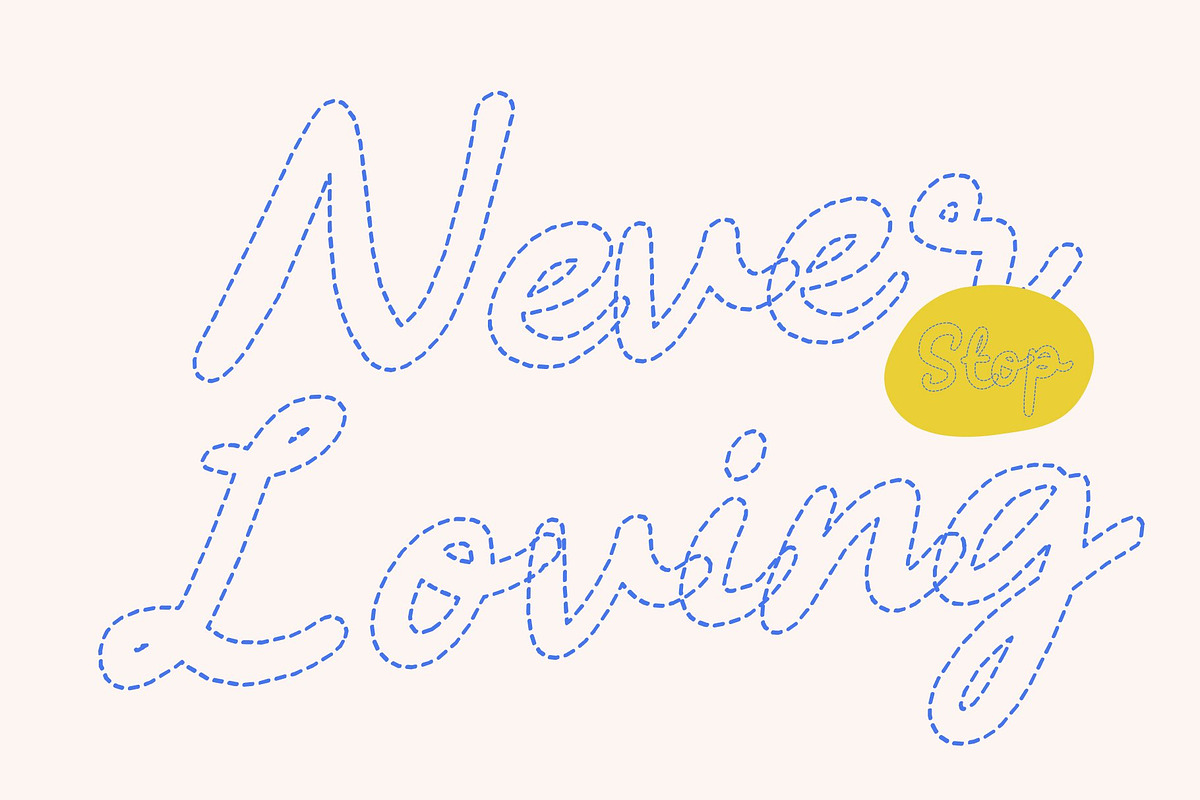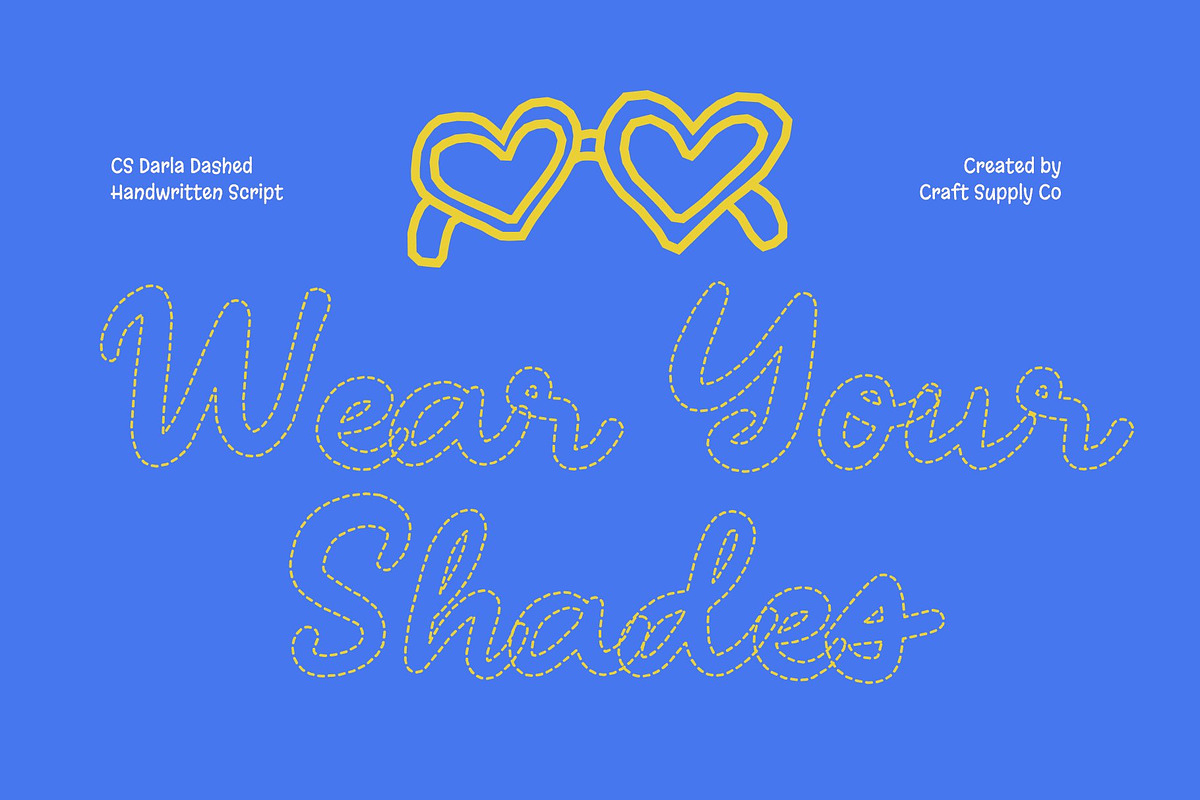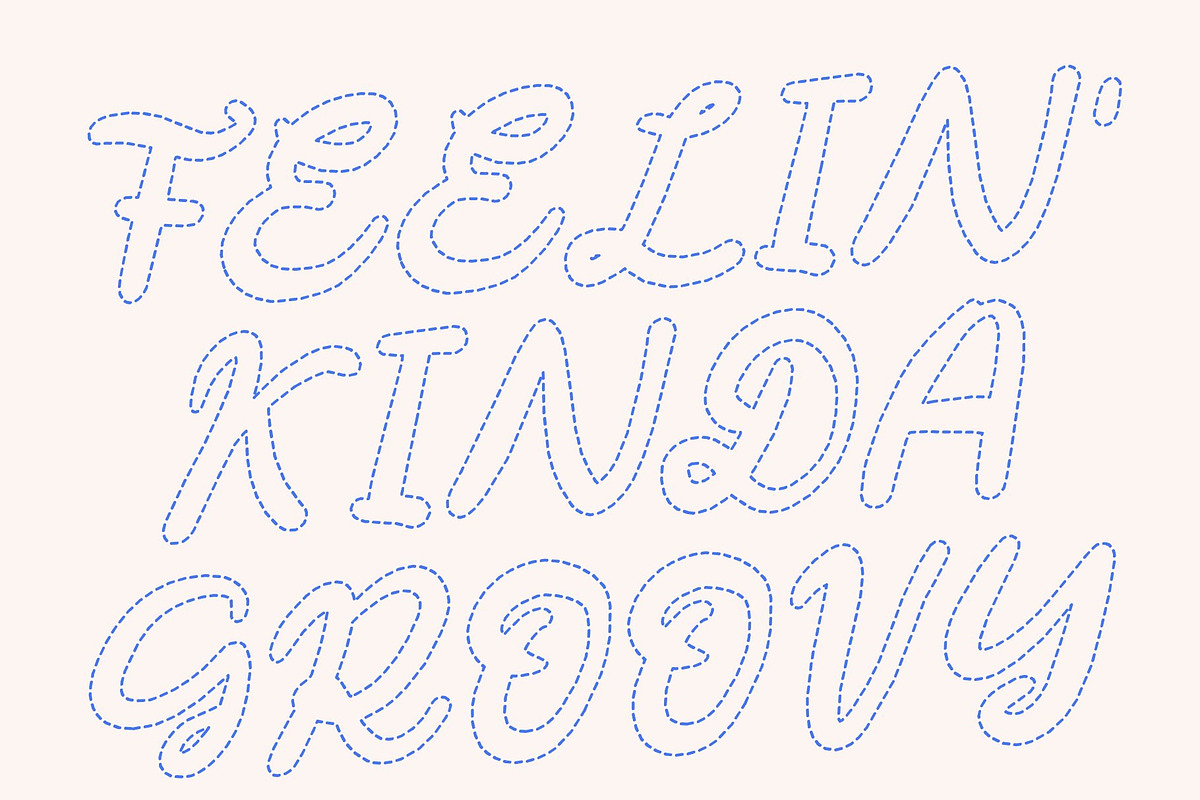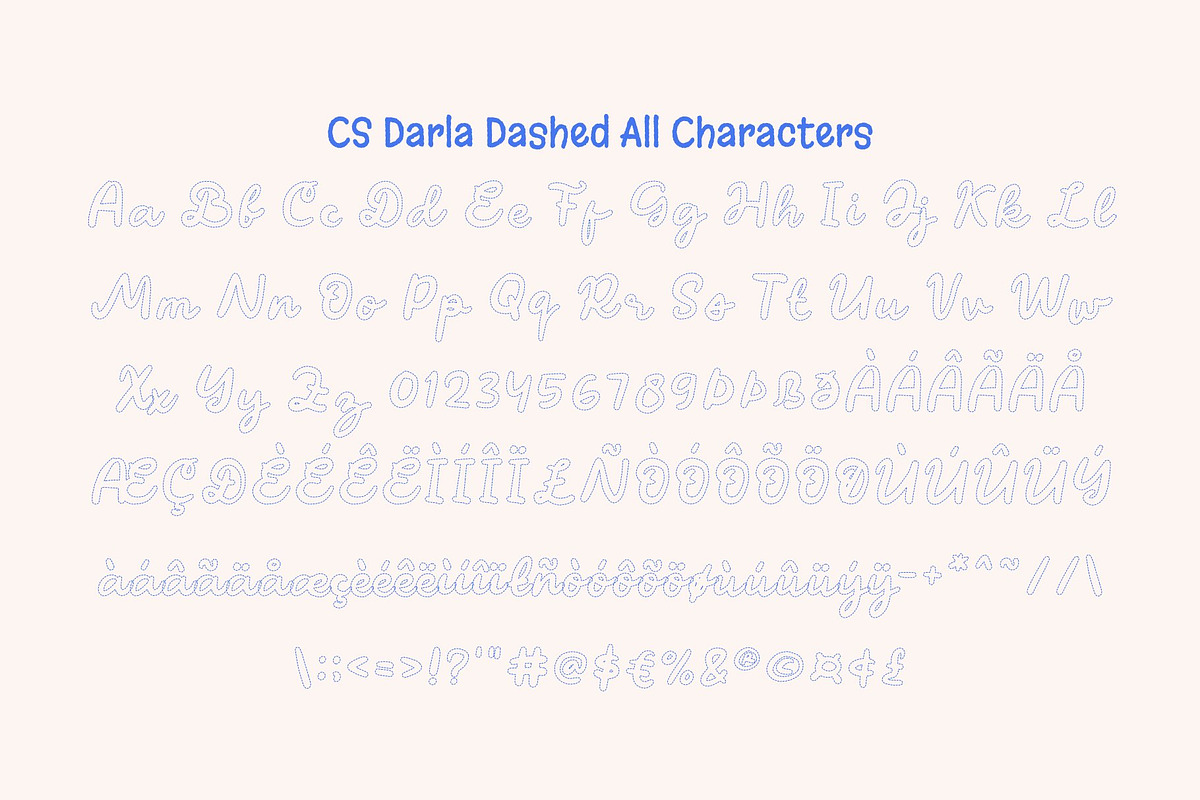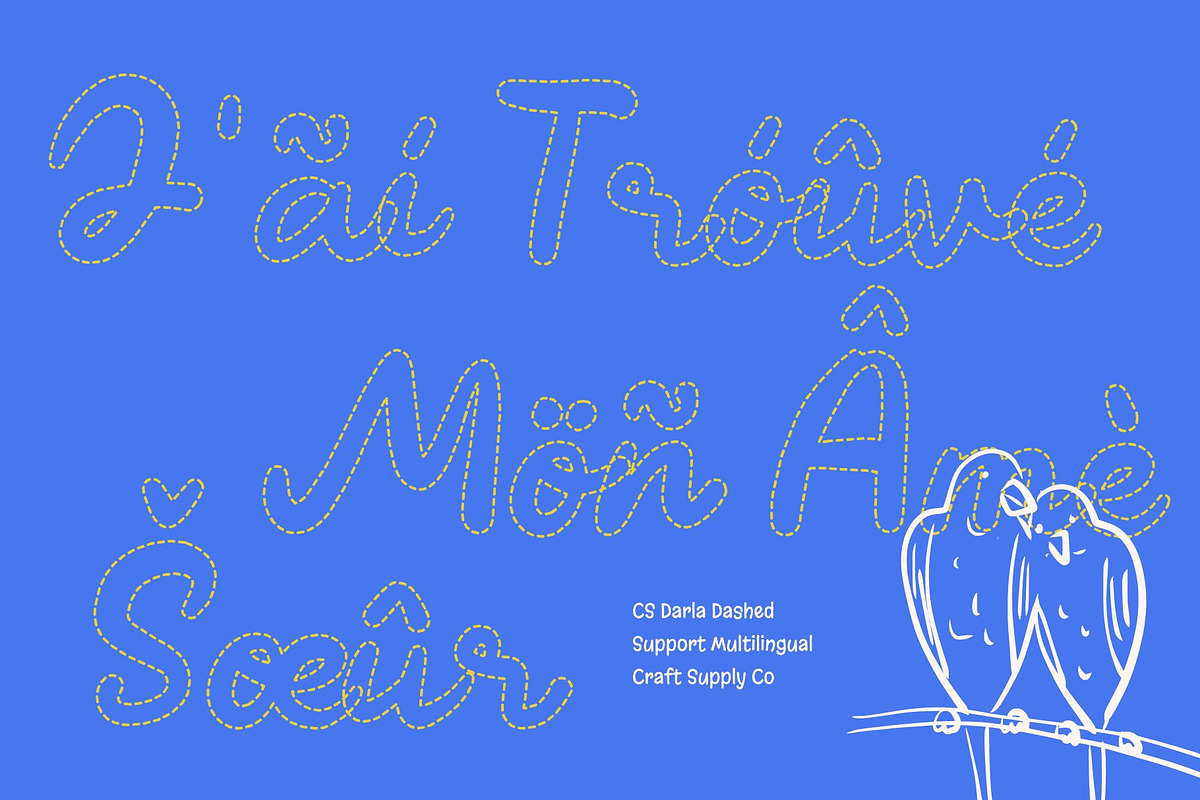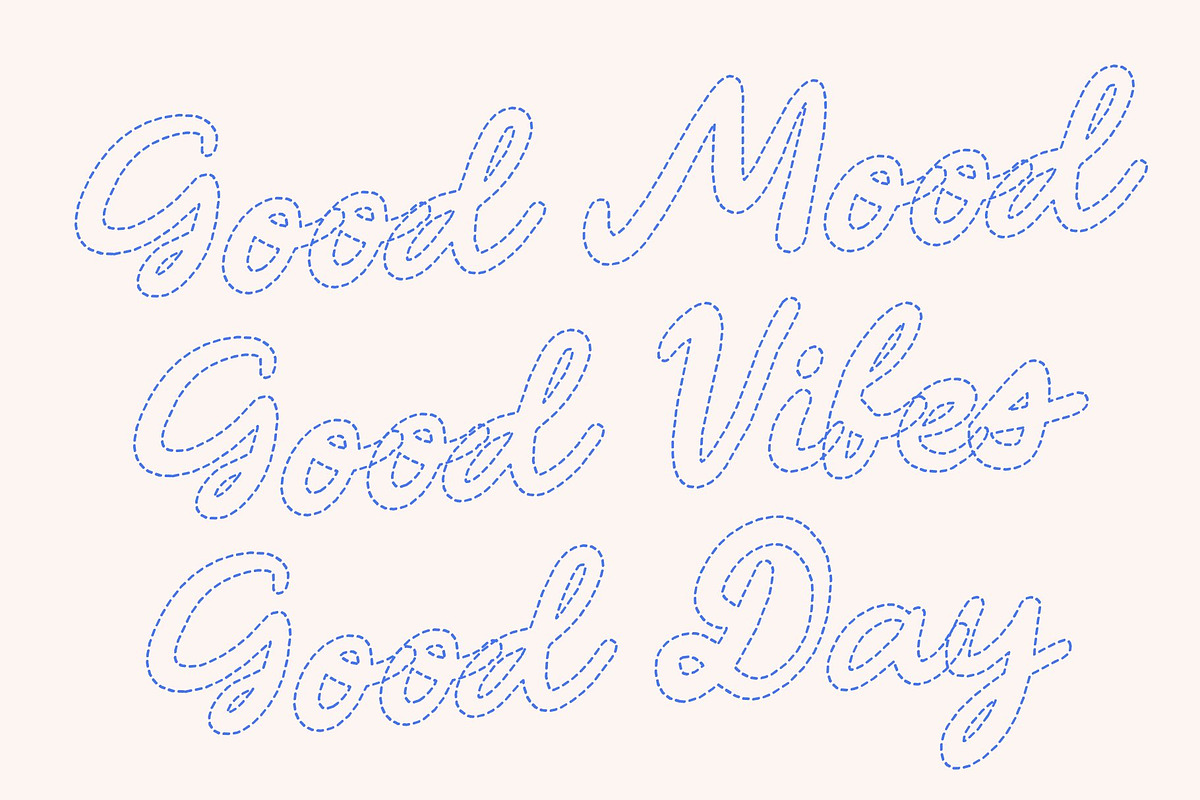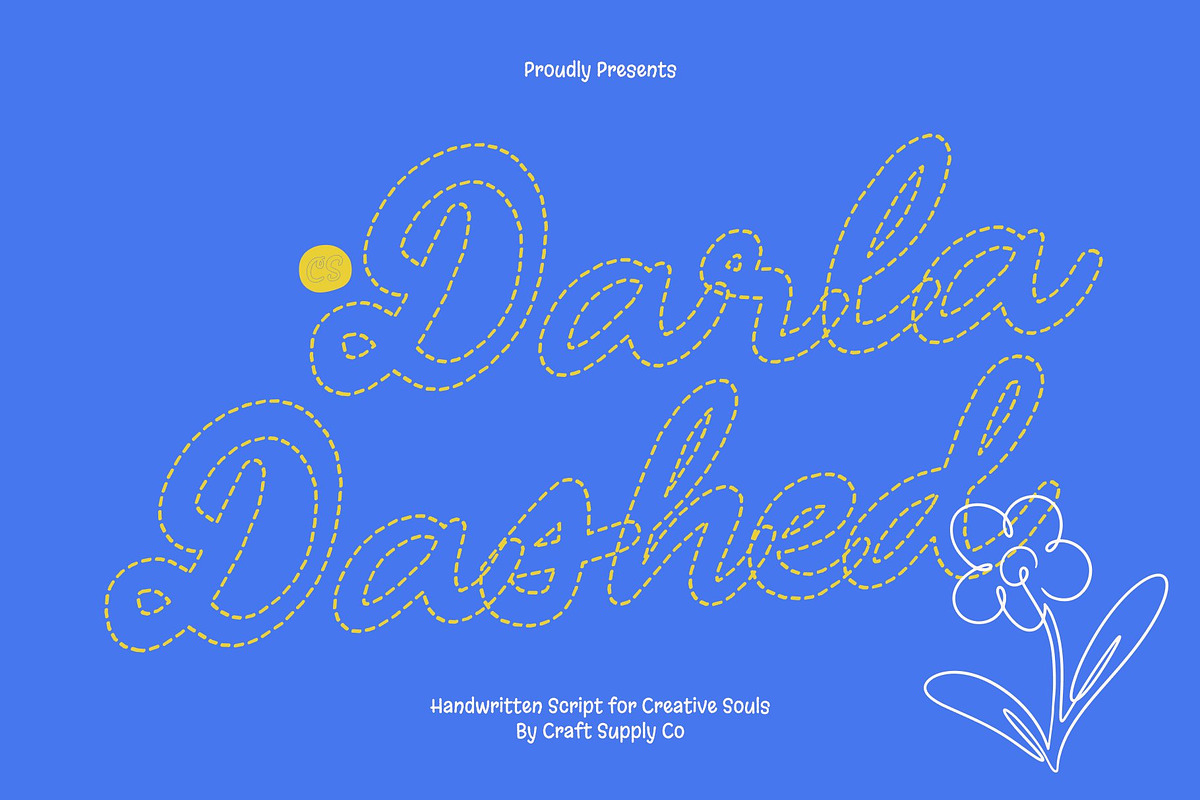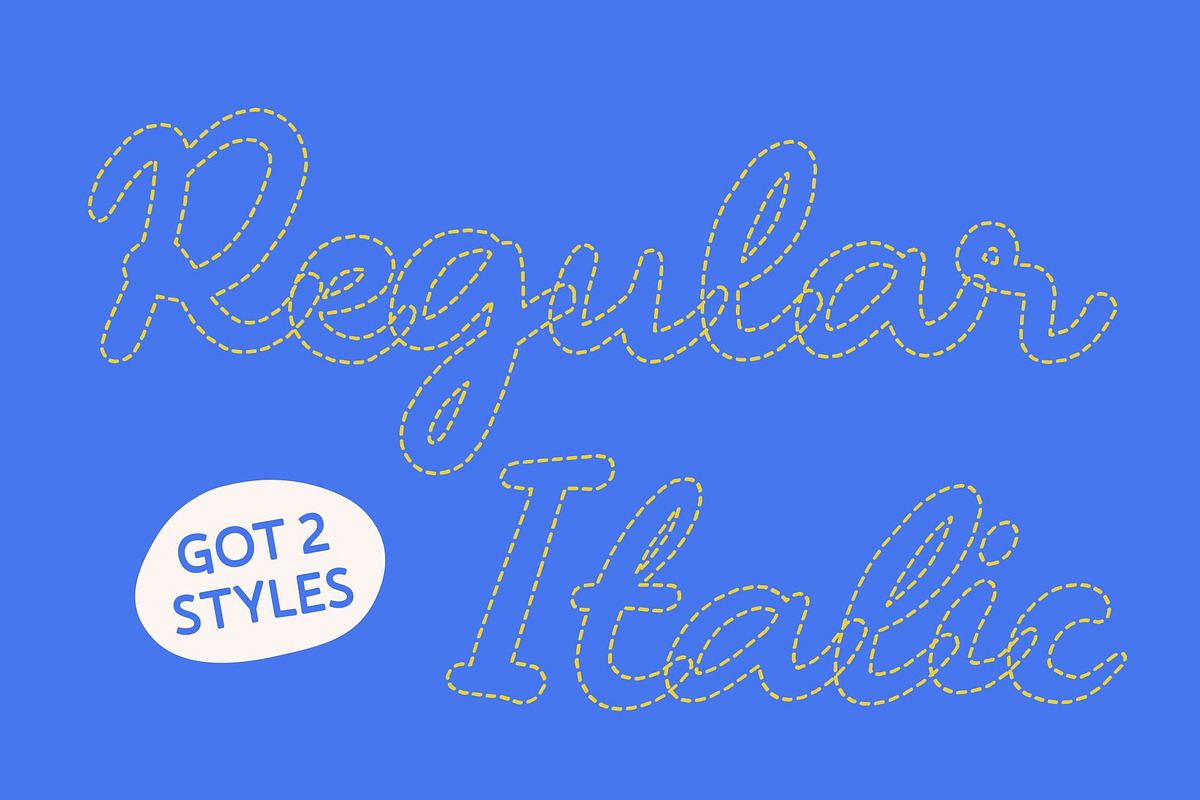
CS Darla Dashed
CS Darla Dashed – Chic Handwritten with Delicate Beauty
Chic Handwritten Script Font with Refined Charm This is a chic handwritten script font created to express delicate beauty and graceful individuality. Its smooth flow and stylish proportions capture modern elegance while preserving the warmth of natural handwriting. Each letter feels personal and refined, making it a beautiful choice for designs that seek sophistication with a fashionable touch.
Dashed Strokes with Delicate Creative Flourishes The defining feature of this font is its dashed construction. Rather than solid, continuous strokes, the letterforms are composed of fine, broken segments that create a soft and airy texture. These short-line strokes enhance the sense of handcrafted movement, as if drawn with a gently lifted pen. Combined with its subtle flourishes, the dashed style introduces a relaxed, artistic rhythm that feels both creative and effortlessly chic.
Elegant, Soft, and Expressively Modern The segmented strokes add visual interest while maintaining clarity and balance. This delicate detailing gives the font a distinctive personality refined yet approachable, stylish yet warm. It conveys intimacy and authenticity, making every word feel thoughtfully crafted and visually graceful.
Perfect for Branding, Invitations, and Fashion Graphics This is ideal for branding, wedding invitations, fashion graphics, packaging, editorial layouts, and lifestyle visuals. Its elegant dashed handwritten style makes it especially suitable for beauty brands, boutique logos, and creative projects that aim to feel personal, trendy, and artistically refined.